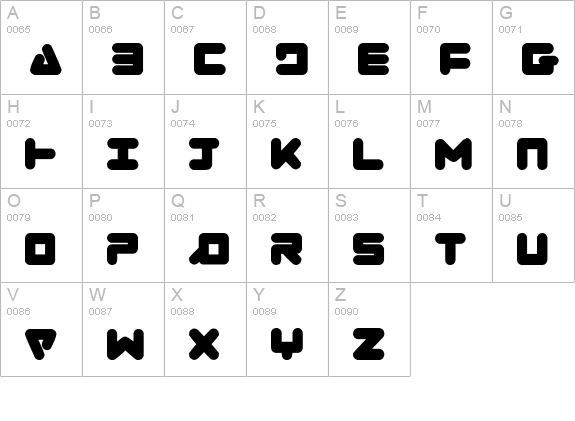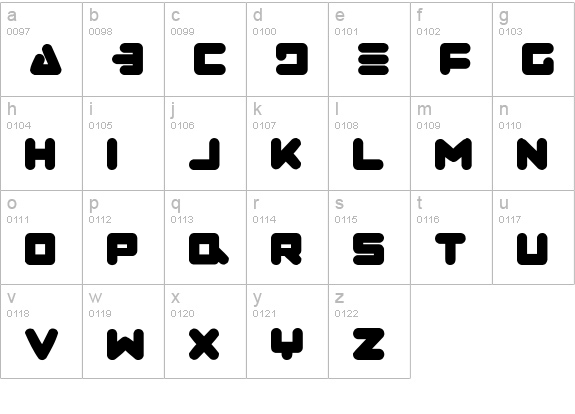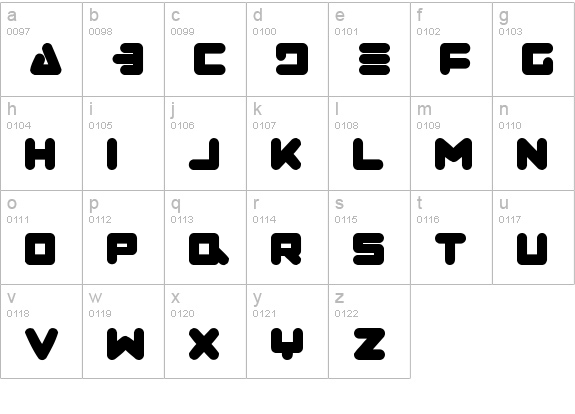
Zealot Font Details
Zealot font is a bold and dynamic typeface that exudes strength and confidence. Its sharp lines and angular shapes give it a modern and edgy appearance, making it perfect for headlines, posters, and branding projects. The unique combination of geometric elements and sleek design sets Zealot font apart from traditional fonts, making it a standout choice for those looking to make a bold statement with their typography. What's even better is that Zealot font is available for free download at FontsMarket.com. This means you can easily add this impactful font to your design arsenal without any cost. Don't miss out on the opportunity to elevate your projects with the striking presence of Zealot font - download it now and unleash your creativity!